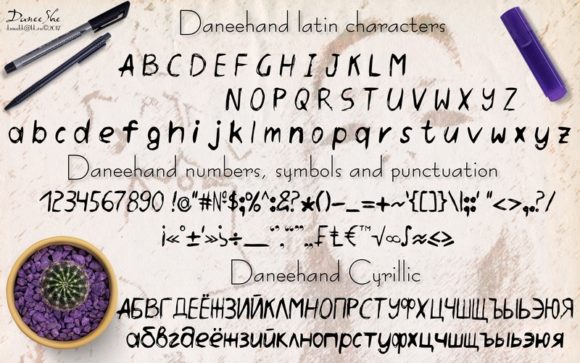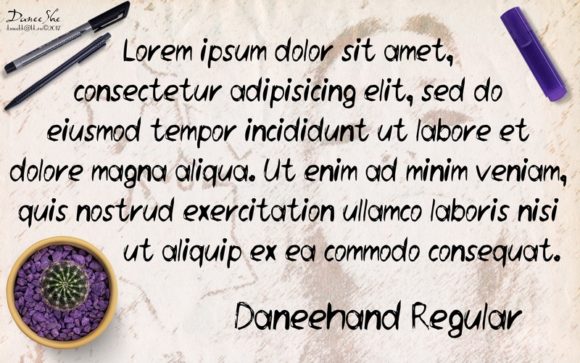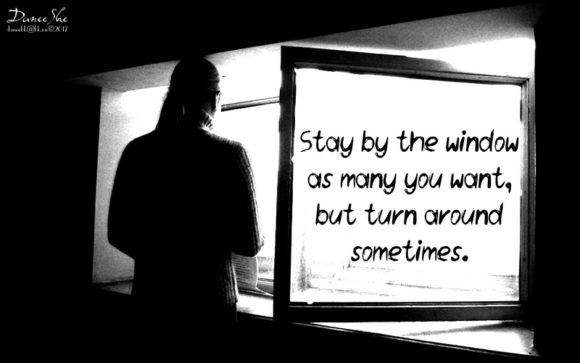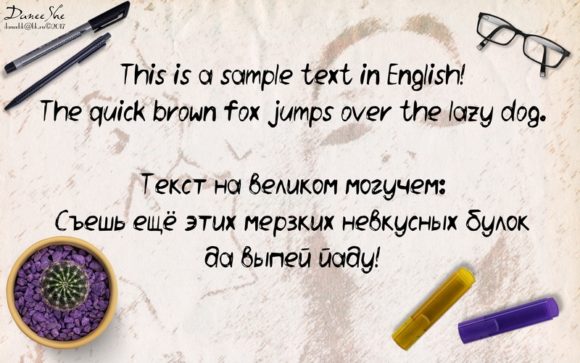
Daneehand Font: Elevate Your Designs with a Modern Grunge Twist
In the world of design, typography plays a crucial role in conveying a message, expressing creativity, and building brand identity. For designers and crafters looking for a unique and modern handwritten font with a grunge style, Daneehand Font is an excellent choice. This versatile font is designed to elevate a wide range of design projects to the highest level, making it perfect for branding, headings, invitations, signatures, logos, labels, and more.
What is Daneehand Font?
Daneehand Font is a modern handwritten font that combines the elegance of handwriting with the edginess of grunge style. Its unique blend of smooth lines and rough textures gives it a distinctive look that’s both stylish and attention-grabbing. The font’s design is carefully crafted to ensure that it’s legible, yet imperfect enough to add a touch of personality to your designs.
Key Features of Daneehand Font
- Modern Handwritten Style: Daneehand Font boasts a fresh and contemporary handwritten style that’s perfect for designers looking for a unique typography solution.
- Grunge Texture: The font features a grunge texture that adds a rough, organic feel to your designs, making them stand out from the crowd.
- High Versatility: Daneehand Font is suitable for a wide range of design projects, from branding and advertising to packaging and digital media.
- Easily Readable: Despite its grunge texture, the font remains highly legible, ensuring that your message is conveyed clearly and effectively.
Use Cases for Daneehand Font
Daneehand Font is an incredibly versatile typography solution that can be used in various design projects, including:
- Branding: Create a unique brand identity with Daneehand Font, perfect for logos, business cards, and letterheads.
- Invitations and Stationery: Add a personal touch to your invitations, greeting cards, and stationery with this beautiful handwritten font.
- Signatures and Labels: Use Daneehand Font to create custom signatures, labels, and stickers that showcase your personality or brand.
- Logos and Icons: Design stunning logos and icons with Daneehand Font, perfect for websites, apps, and social media profiles.
- Packaging and Advertising: Elevate your packaging and advertising materials with a modern, eye-catching typography solution.
Why Choose Daneehand Font?
With so many fonts available, why choose Daneehand Font? Here are a few compelling reasons:
- Unique Style: Daneehand Font offers a distinctive grunge style that’s hard to find in other fonts.
- High-Quality Design: The font is carefully crafted to ensure that it’s both aesthetically pleasing and highly legible.
- Time-Saving: With Daneehand Font, you can quickly create stunning designs without spending hours on typography.
| Font Name | Daneehand Font |
| Author | Danee Fonts |
Daneehand Font is a modern handwritten font with a grunge style that’s perfect for designers and crafters looking to elevate their designs. Its unique blend of smooth lines and rough textures makes it a versatile typography solution suitable for a wide range of design projects. With its high legibility, easily readable design, and distinctive style, Daneehand Font is an excellent choice for anyone looking to add a touch of personality to their designs.